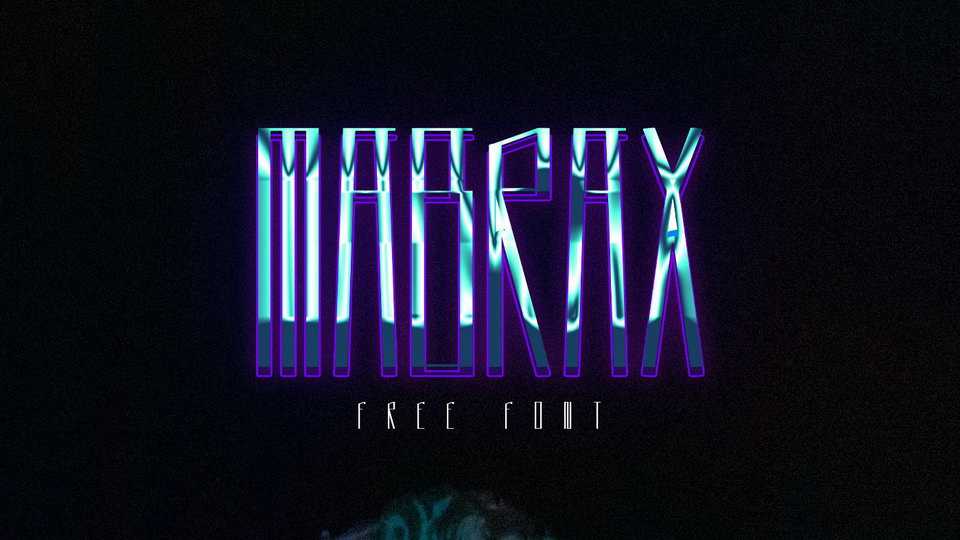
Download Mabrax font, a bold looking condensed display typeface that’s perfect for cover art and poster designs. The majority of the letters share the same width which gives the Mabrax a bold and technical look.